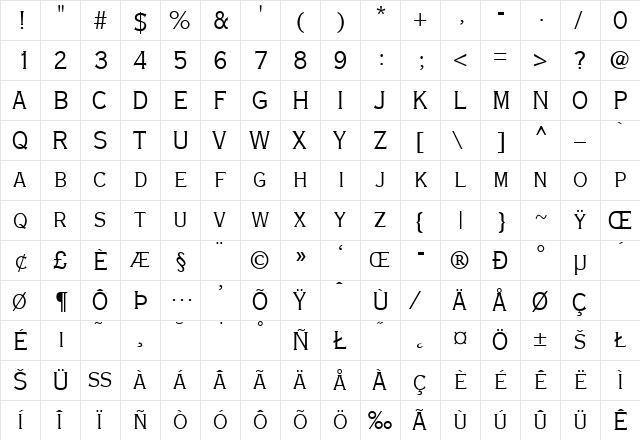
Copperplate-TwentyNineAB Regular
Design Context for Copperplate-TwentyNineAB Typeface
Copperplate-TwentyNineAB is a composed and adaptable typeface that performs quietly and consistently across a wide range of design contexts.
Pro Tip: Use Copperplate-TwentyNineAB in both headline and body roles to test its range before committing to a single application.